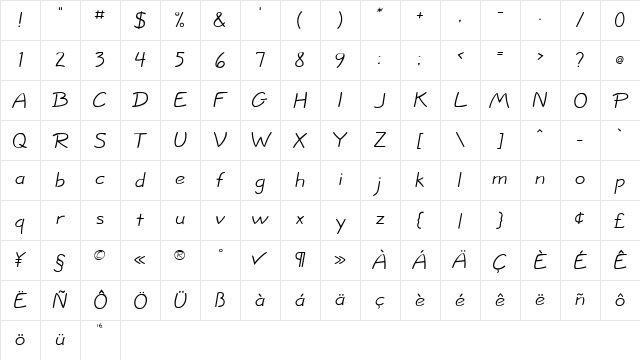
Hopalong Normal Free Font
Hopalong Normal
Design Context for Hopalong
Hopalong is a composed and adaptable typeface that performs quietly and consistently across a wide range of design contexts.